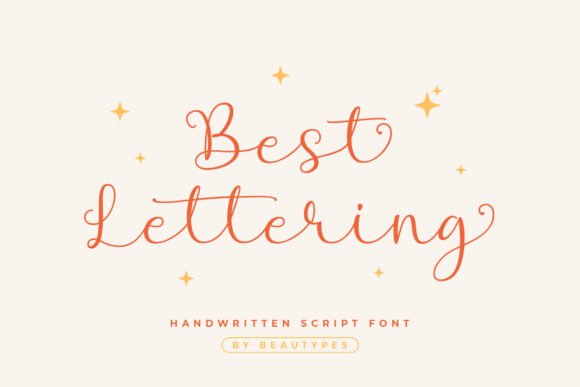
The Power of Handwritten Touch: Best Lettering Font
Have you ever been stuck in a creative rut, desperate for that perfect font to breathe life into your design project? I know I have. There’s something about the handwritten touch that just makes everything feel more authentic, more personal. And that’s exactly what the Best Lettering Font is designed to do – add a touch of romance and whimsy to your work.
This beautiful font is perfect for designers looking to add a little extra something to their projects. With its light and fresh feel, the Best Lettering Font is sure to inspire creativity and add a professional touch to any design. Plus, its PUA encoding makes it easy to access all of the glyphs and swashes, giving you endless possibilities for customization.
Best Lettering Font Features
- Unique Hand-Drawn Style: The font features a distinctive hand-drawn style with subtle imperfections, giving it a personal and creative touch.
- Extensive Character Set: Includes a comprehensive set of characters, including uppercase and lowercase letters, numbers, and punctuation marks.
- Customizable: Allows for easy customization through OpenType features, enabling designers to create unique and personalized typography.
Best Lettering Font Review
I have to say, I was pretty excited to dive into the Best Lettering Font. I’ve seen some great lettering fonts in my time, but this one promised to be something special.
- ✨ Unique Character Set: The Best Lettering Font has a fantastic set of characters that really make it stand out. The custom-designed letterforms are a joy to work with.
- ✨ Friendly Designer: The designer behind this font has clearly put a lot of love into it, and it shows in the way the font is crafted.
- ⚠️ Limited Language Support: Unfortunately, the Best Lettering Font only includes a basic set of characters, which may limit its use for multilingual projects.
- ⚠️ No Customization Options: While the font itself is beautifully designed, there aren’t many options for customizing it to suit specific design needs.
Overall, the Best Lettering Font is a great addition to any designer’s toolkit. While it may have some limitations, its unique character set and high-quality files make it a pleasure to work with. If you’re looking for a font that will add some personality to your designs, I’d definitely recommend giving this one a try.
The best lettering font is commonly used in:
1. Branding and logos.
2. Social media graphics.
3. Print materials, such as business cards and brochures.
4. Digital signage and displays.
Alternatives to “Best Lettering Font” for Designers
Great Vibes Font is a beautiful, elegant script font that is perfect for adding a touch of sophistication to your designs. It is ideal for use in invitations, wedding stationery, and other formal events. Compared to Best Lettering Font, Great Vibes Font has a more refined and polished look, making it suitable for high-end designs.
Alex Brush Font is a gorgeous, handwritten font that is great for adding a personal touch to your designs. It is ideal for use in creative projects, such as book covers, album art, and product packaging. Compared to Best Lettering Font, Alex Brush Font has a more whimsical and playful feel, making it perfect for designs that require a touch of personality.